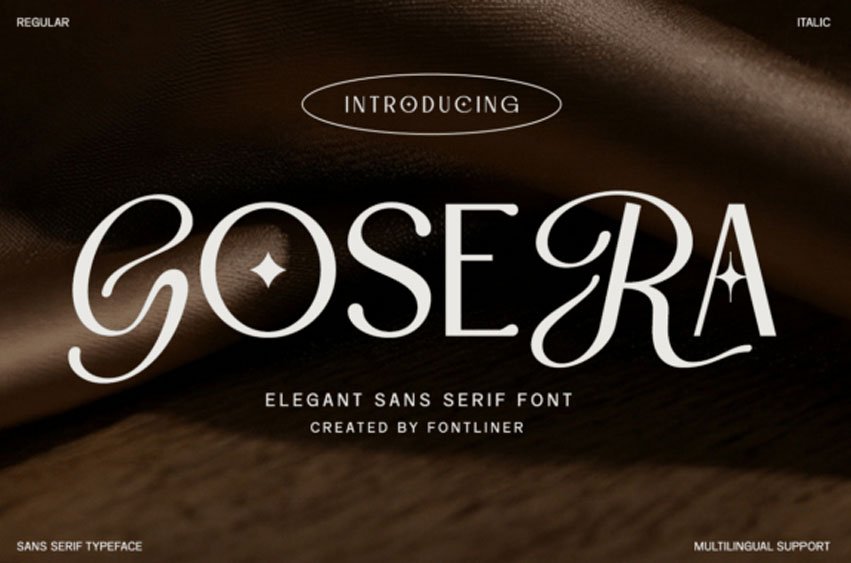
Gosera Font is an elegant sans serif font that blends modern minimalism with subtle artistic flair. Ideal for branding, logos, fashion visuals, and editorial layouts, Gosera adapts effortlessly across creative projects.
Its elegant structure makes it especially suitable for luxury branding and modern identity design, while the italic style enhances visual dynamics and adds a graceful, flowing touch.
Whether you’re designing a sleek brand identity or a stylish headline composition, this typeface brings a polished and premium aesthetic to every project.